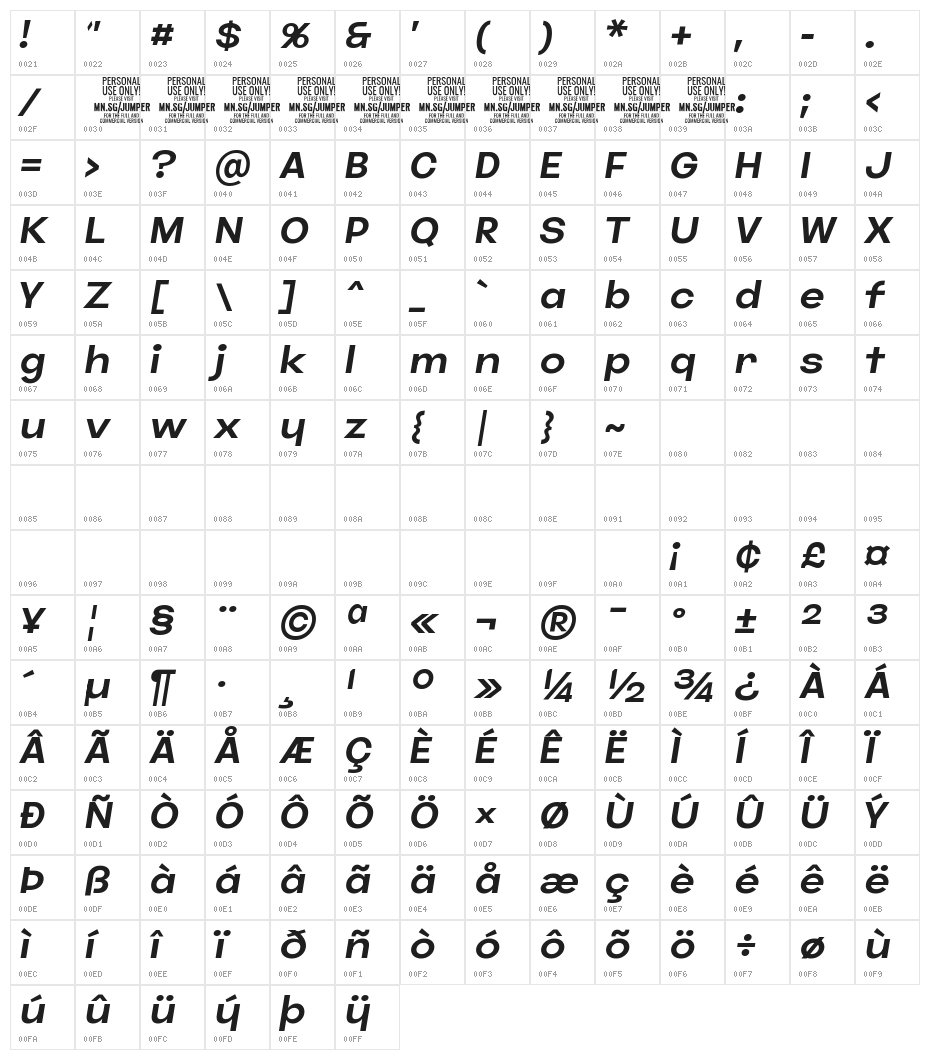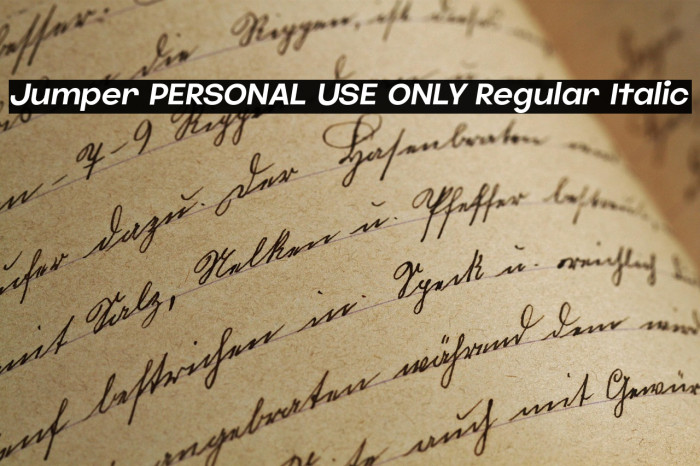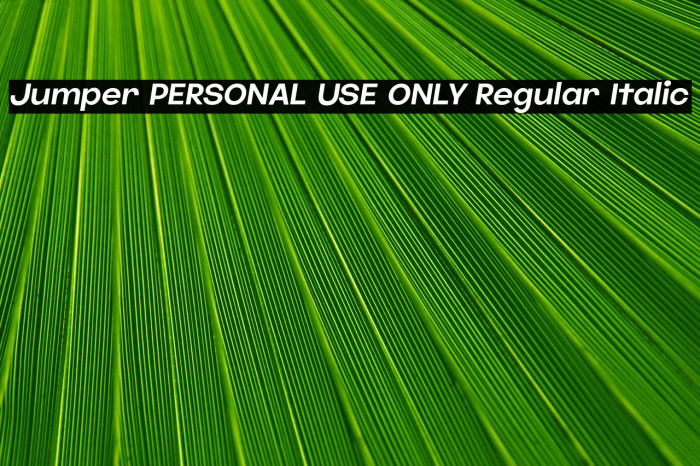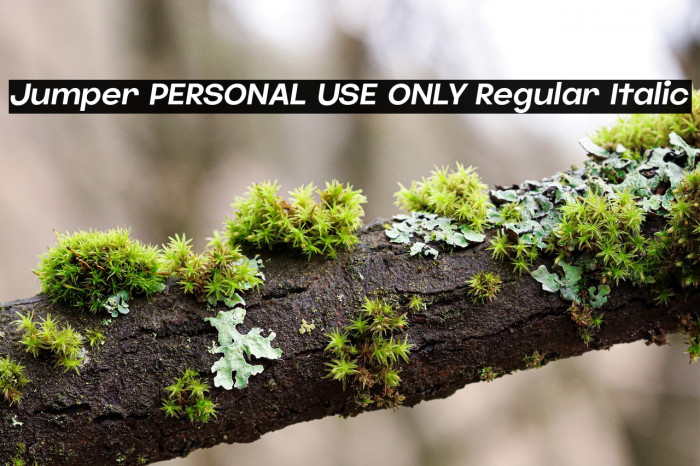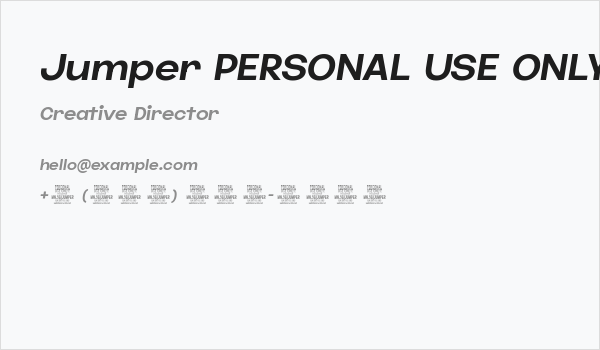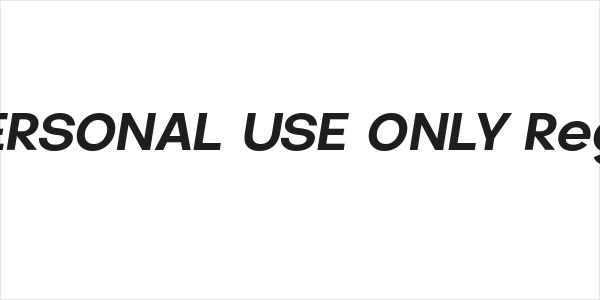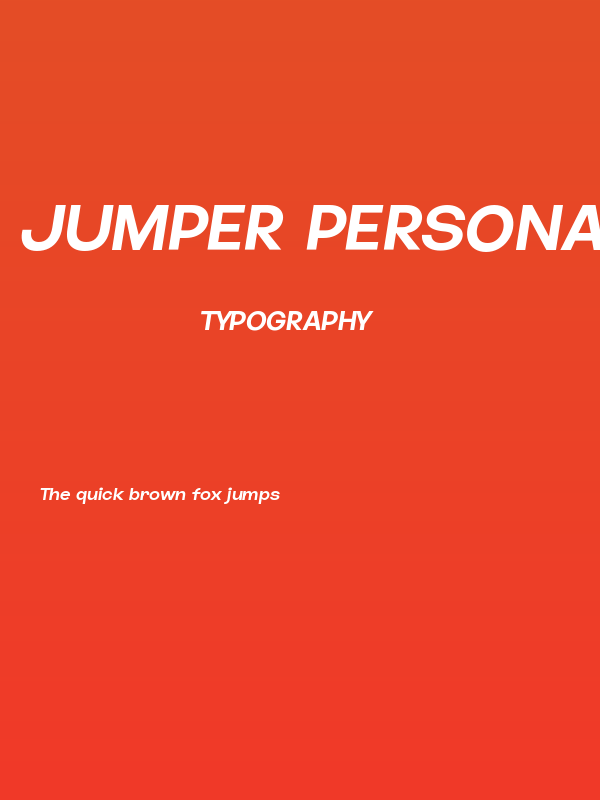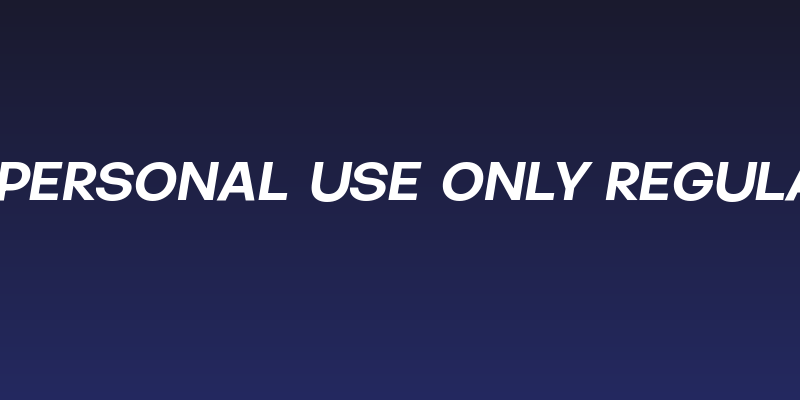
Jumper PERSONAL USE ONLY Regular Italic Font
Jumper PERSONAL USE ONLY Regular Italic Description
This font features a sleek and modern design with a slight italic slant, giving it a dynamic and forward-moving appearance. The characters are well-proportioned with a consistent stroke width, contributing to a clean and professional look. The uppercase and lowercase letters maintain a harmonious balance, while the numerals and special characters are crafted to match the overall aesthetic. The font's simplicity and elegance make it versatile for various design applications.
| Proposed Projects | Ideal for branding, advertising, and editorial design projects where a contemporary and professional look is desired. |